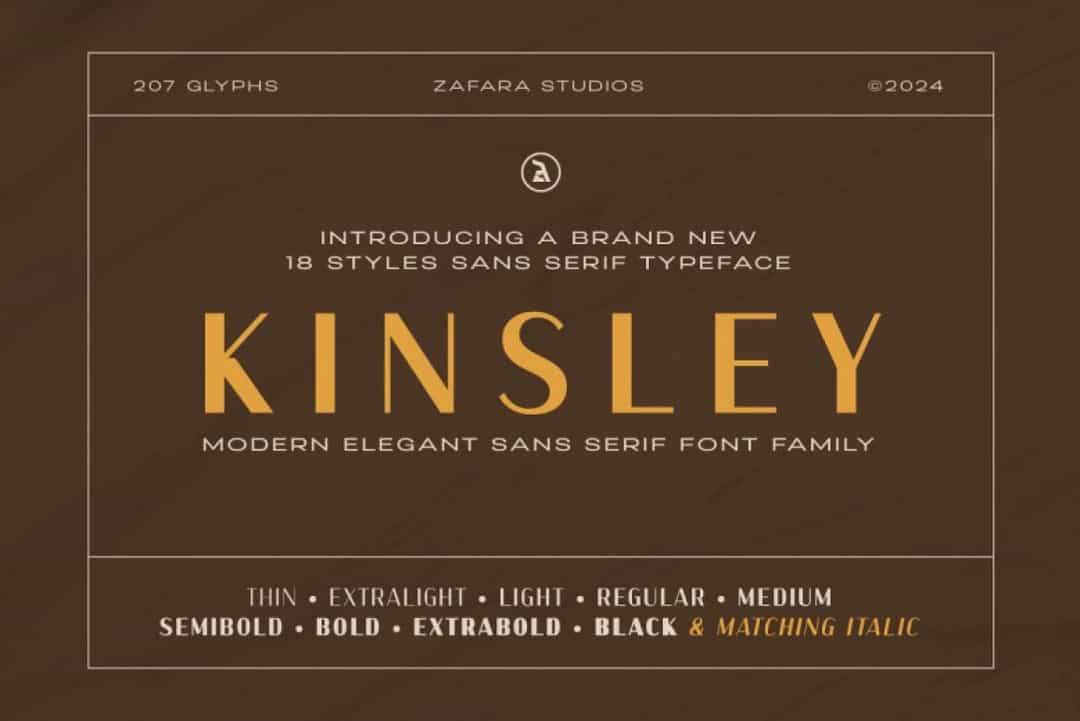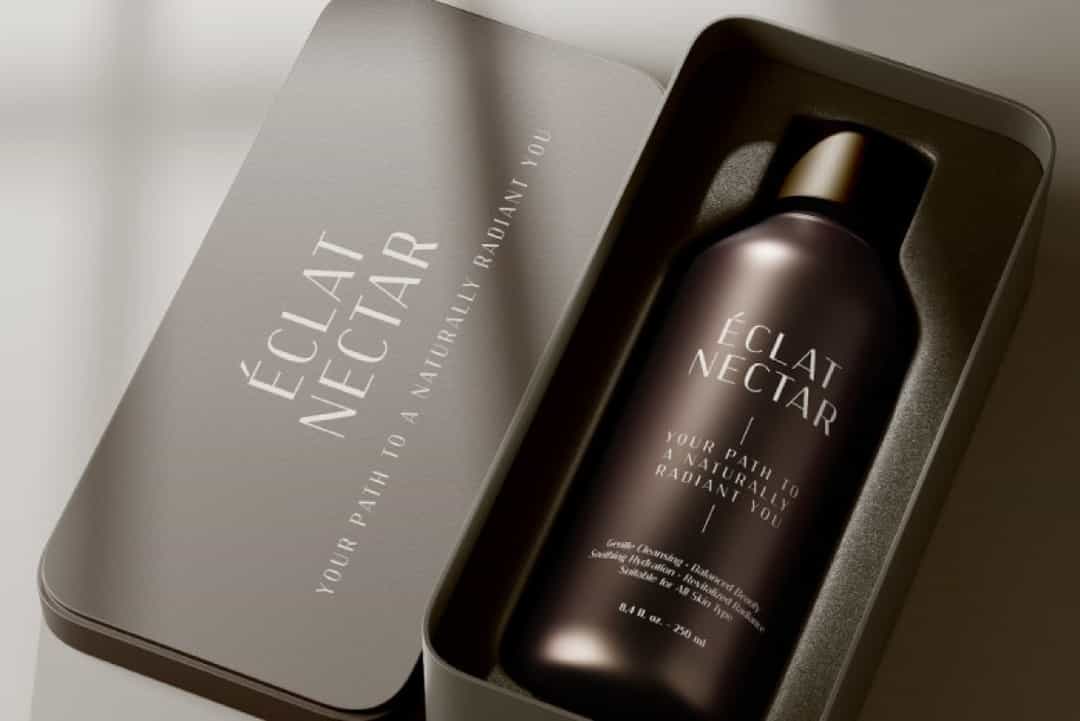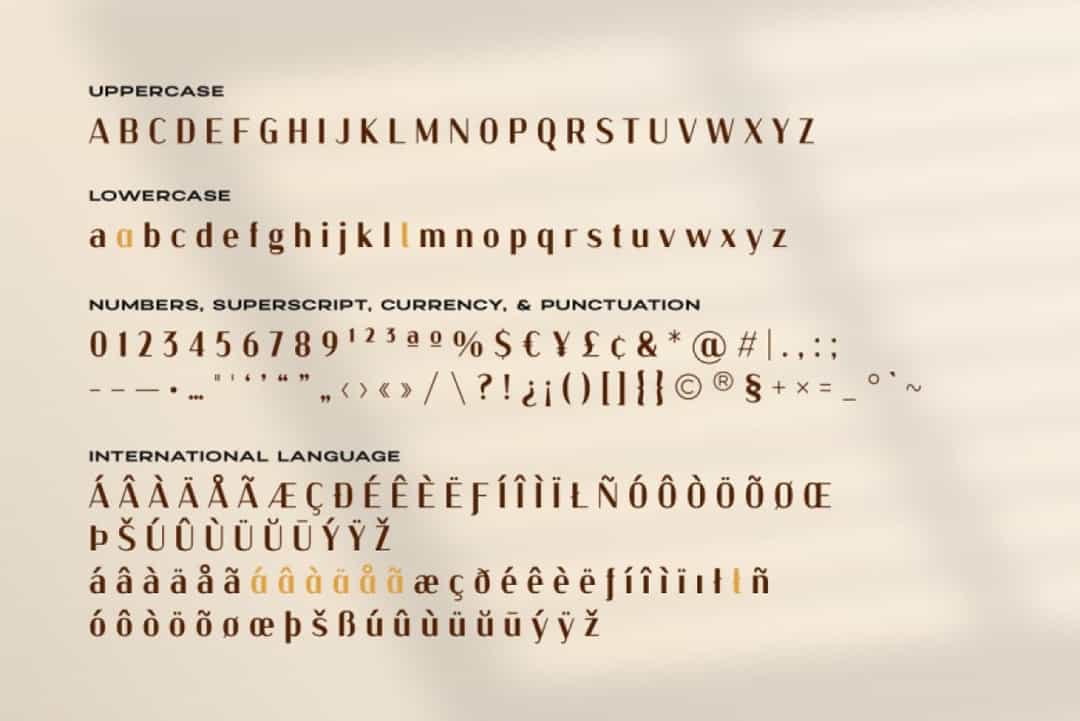
Kinsley is a confident font with clear lines and sleek features that exudes confidence, perfect for branding premium products or services that require an ageless sophistication look. Kinsley font can also be utilized in packaging design, editorial writing and advertising projects among many other uses.